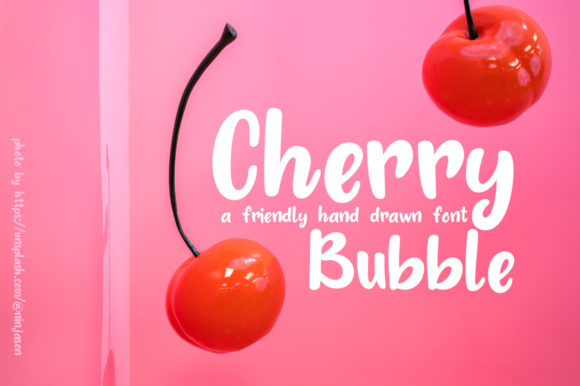
Step into the enchanting world of Cherry Bubble Font, a script font family that captivates hearts with its friendly, adorable, and cute vibes. This unique handwritten font exudes a breath of fresh air, inviting you to explore its authentic charm.
Cherry Bubble Font is more than just a collection of glyphs; it's an expression of creativity and individuality. Let your inner artist run wild as you craft stunning designs that come alive with personality. Whether you're a seasoned graphic designer or just starting your creative journey, Cherry Bubble Font is the perfect companion for all your projects.
Dive into a world of endless possibilities with Cherry Bubble Font. Design eye-catching logos that leave a lasting impression, create heartwarming invitations that capture the essence of your special occasions, or craft unique social media posts that stand out from the crowd. The possibilities are only limited by your imagination.